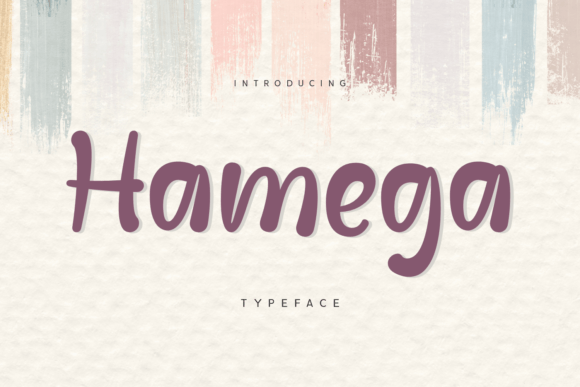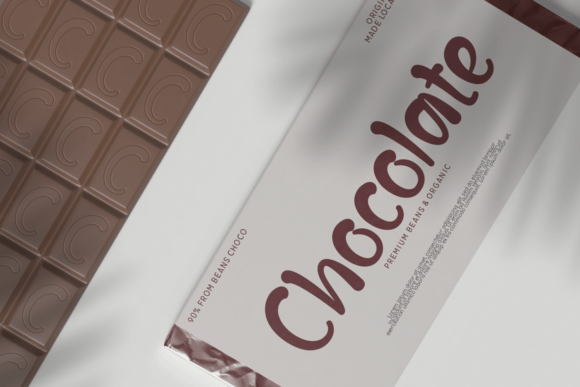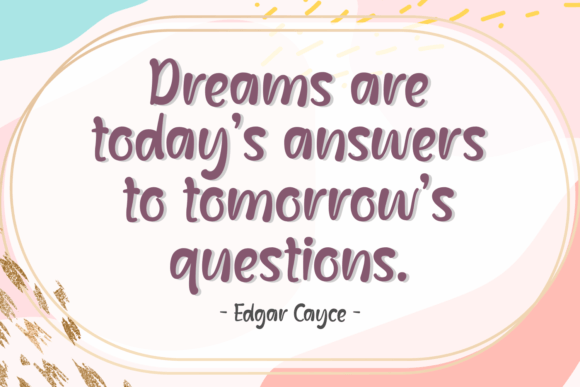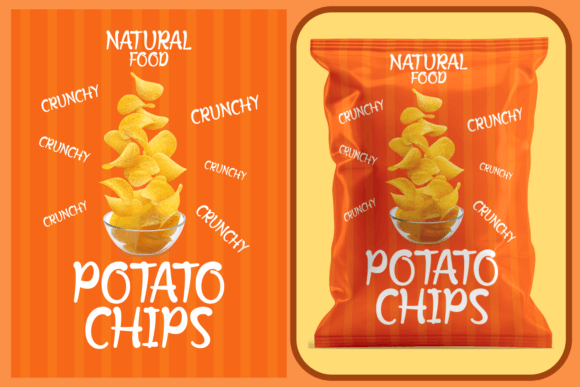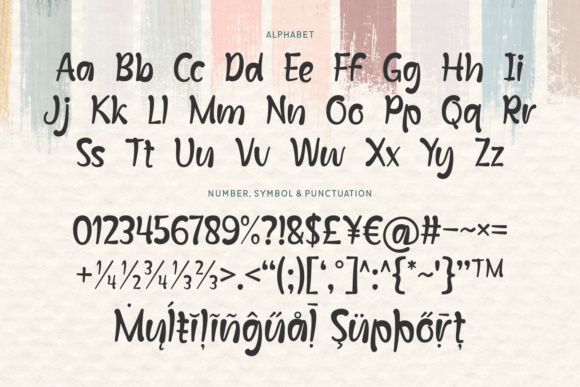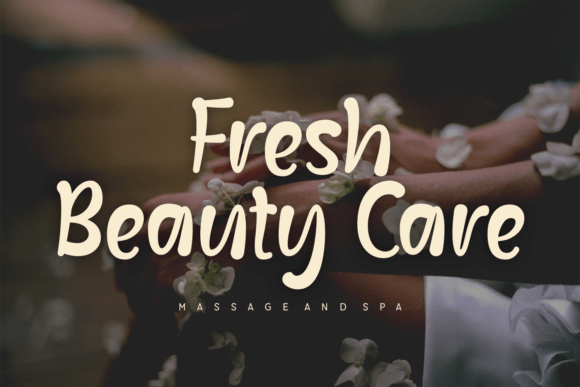
Hamega Font
About Hamega Font
“Hamega” is a bold and stylish handwritten font designed to infuse charm into your design projects. This flexible typeface, with its thick characters, is perfect for a variety of applications, adding a bold and stylish touch to cover titles, product designs, cards, sublimation projects, web graphics, and more.
The bold and stylish nature of “Hamega” is evident in its thick characters, making it a standout choice for cover titles where you want to grab attention with a bold and expressive typography. Whether you’re working on book covers, posters, or any project that requires a bold statement, “Hamega” has you covered.
In product designs, “Hamega” becomes a stylish element, adding character and flair to labels, packaging, and promotional materials. Its flexibility extends to cards, where the bold handwritten script can enhance the visual impact of greetings, invitations, and more.
Sublimation projects and web graphics benefit from the bold and stylish nature of “Hamega,” creating designs that are visually striking and memorable. The thick characters ensure readability and visibility across different mediums, making it a versatile choice for various design applications.
In conclusion, “Hamega” is a font that brings boldness and style to your design projects. Whether you’re working on covers, product designs, cards, or web graphics, let “Hamega” be the handwritten font that adds charm and character to your creations.